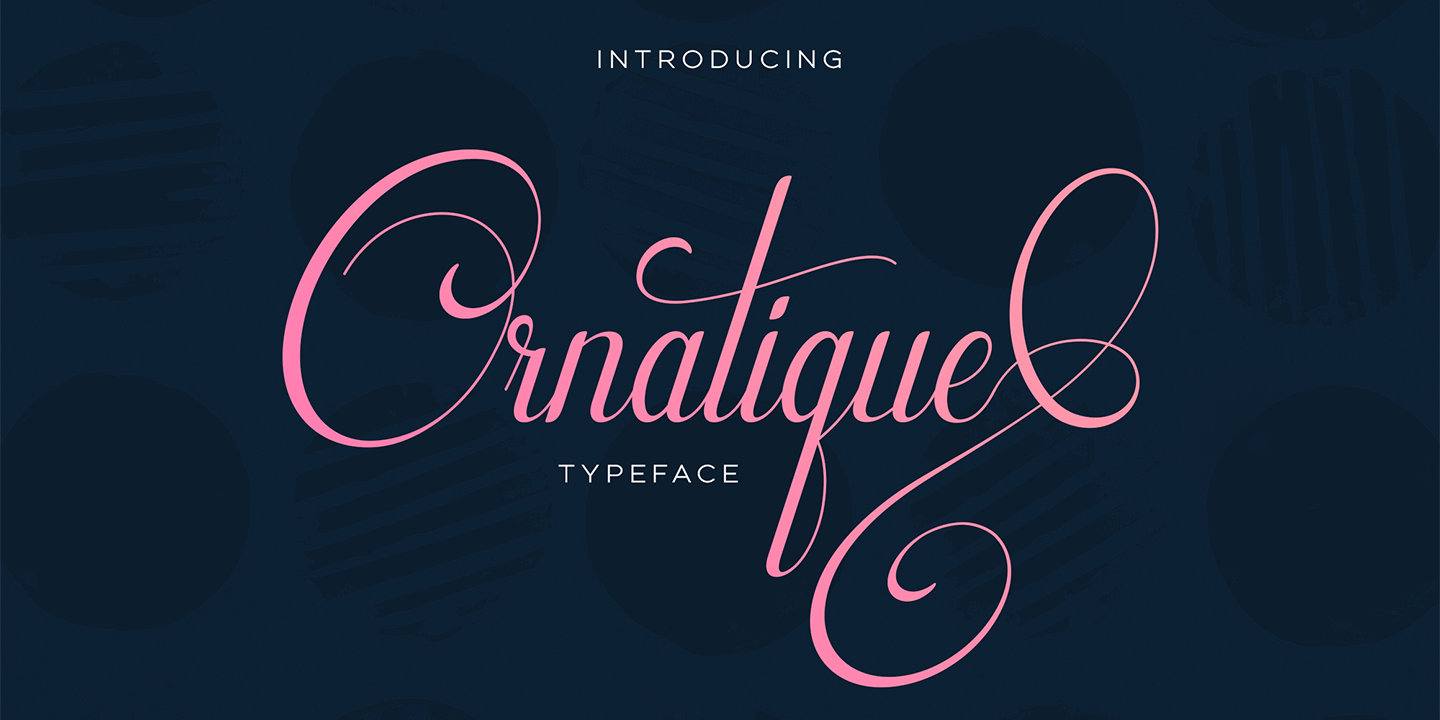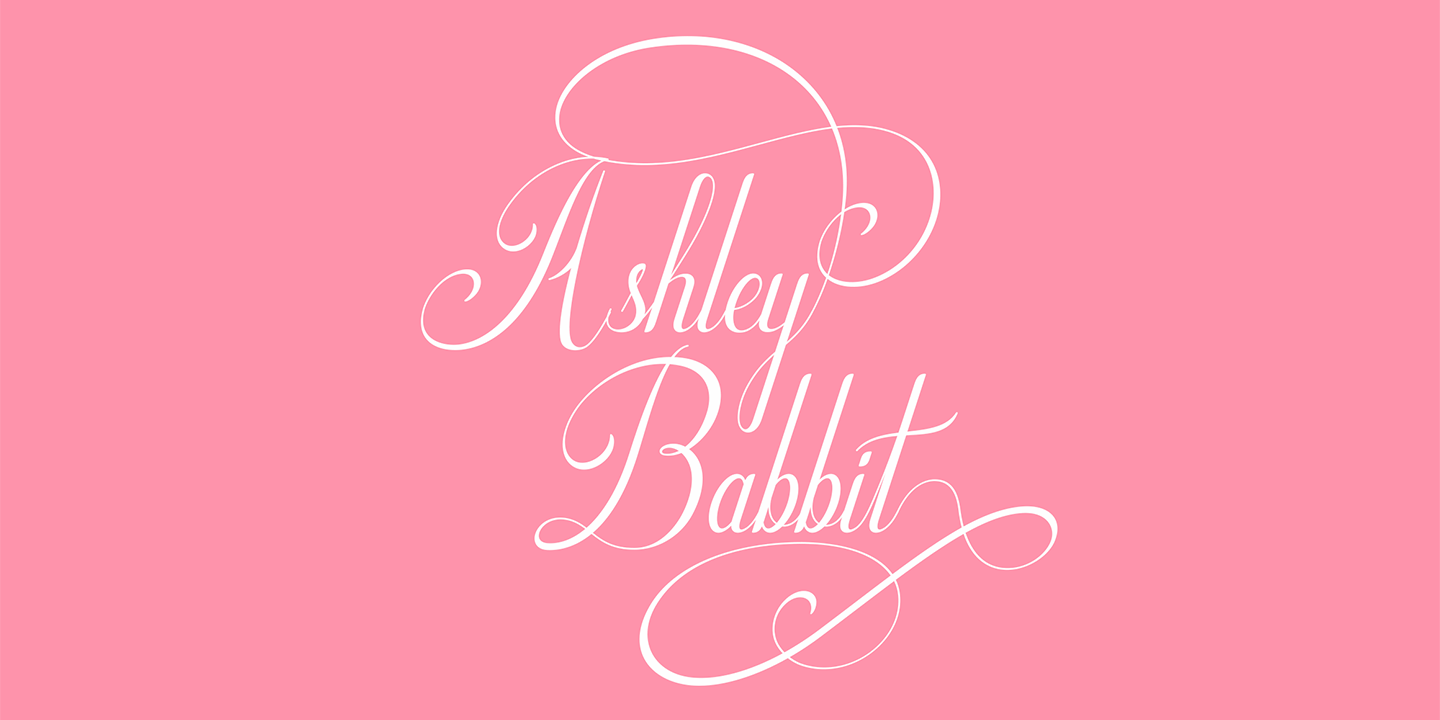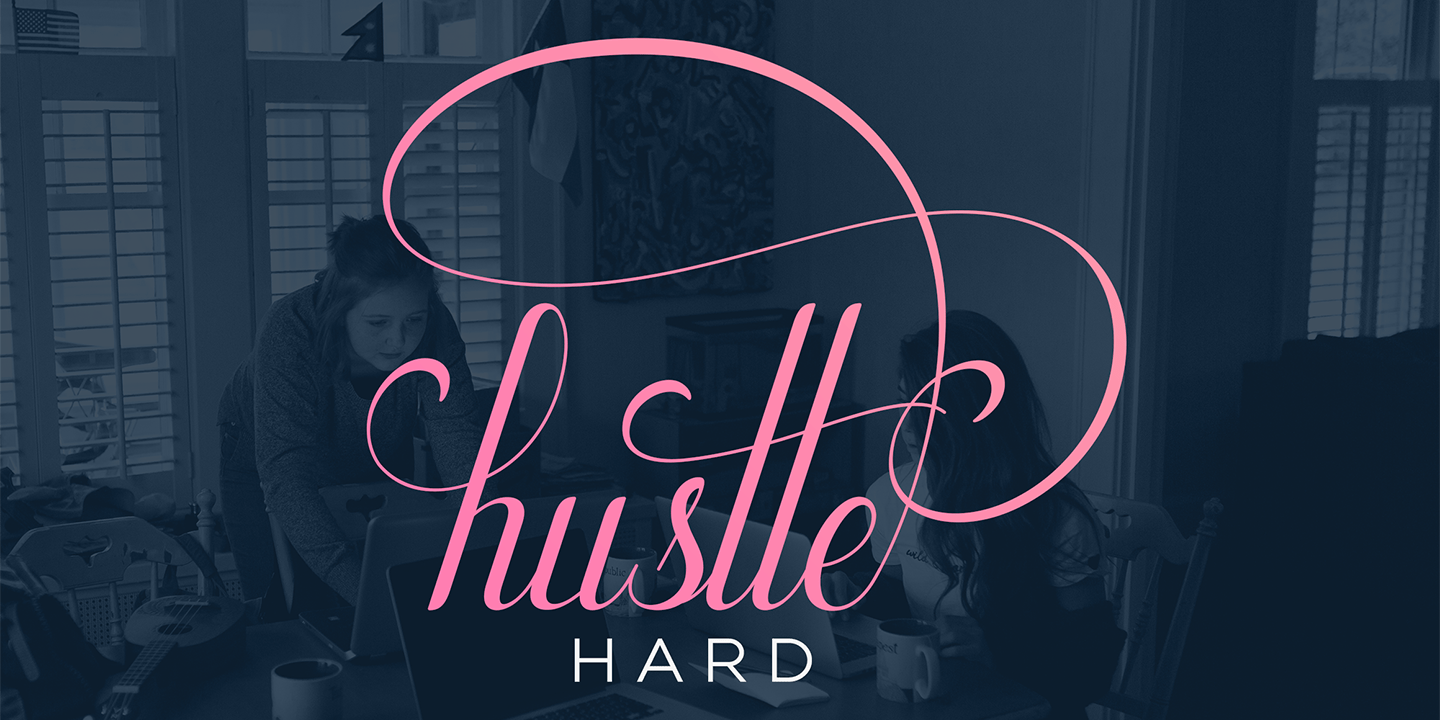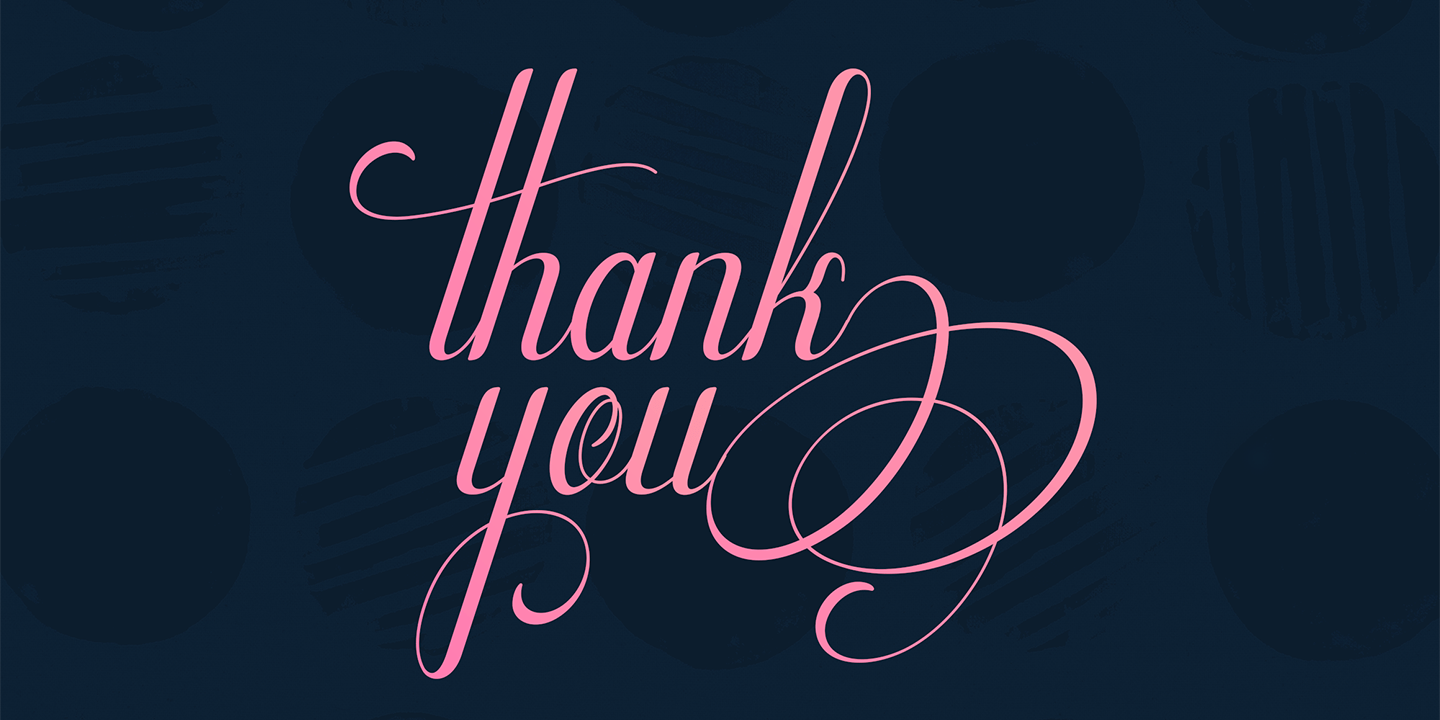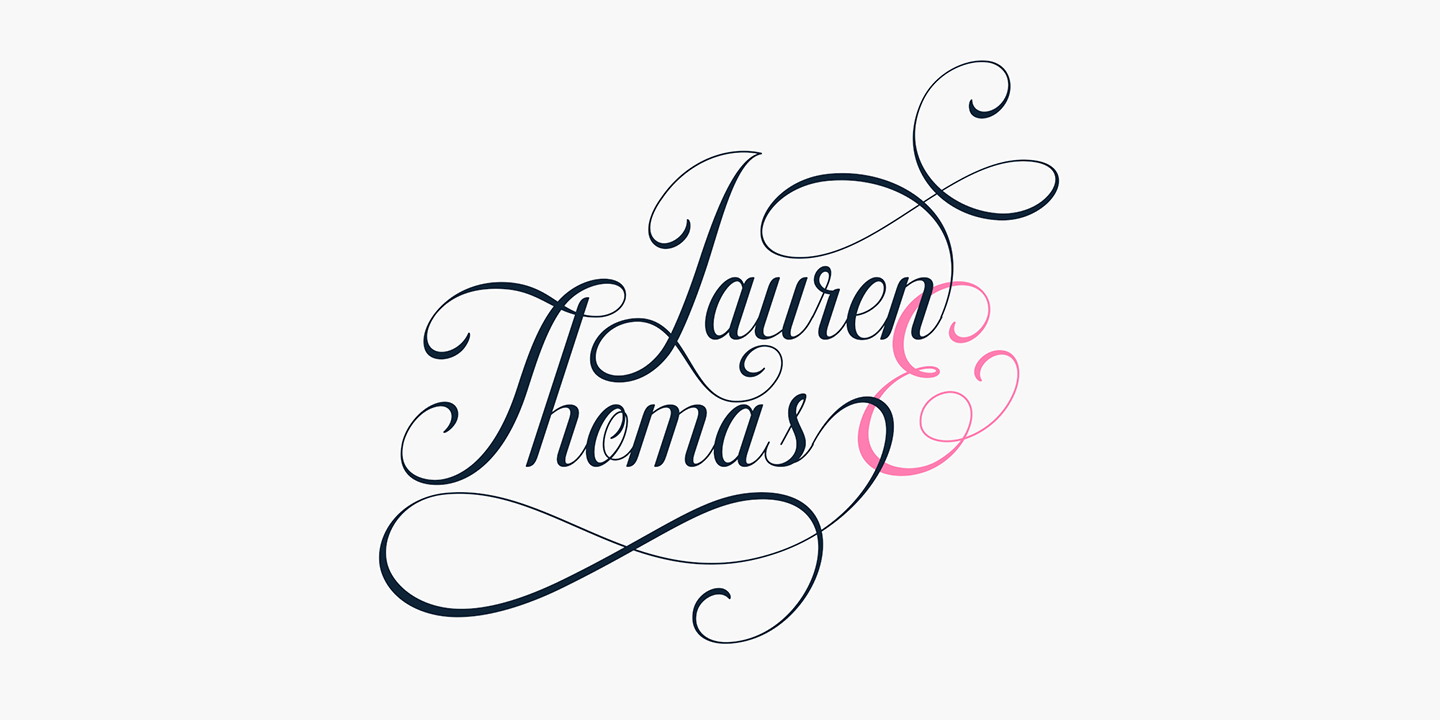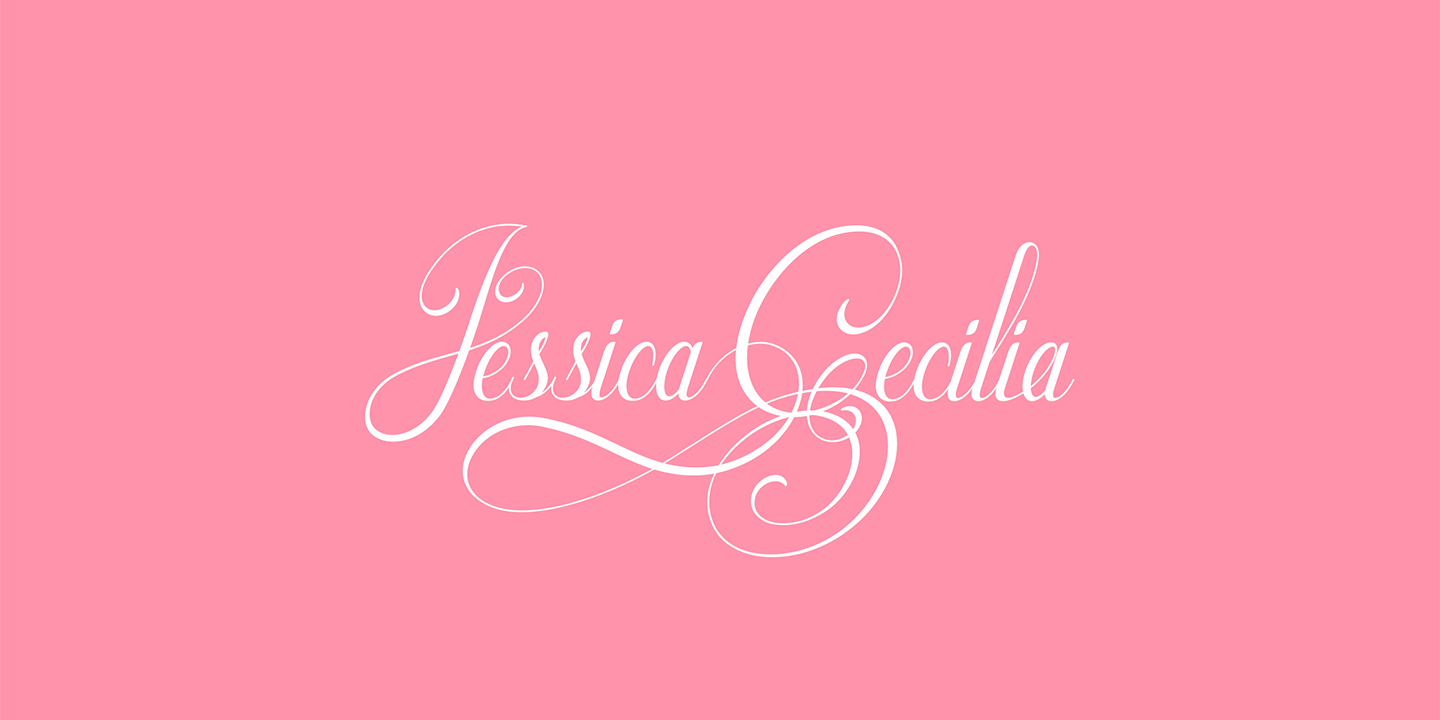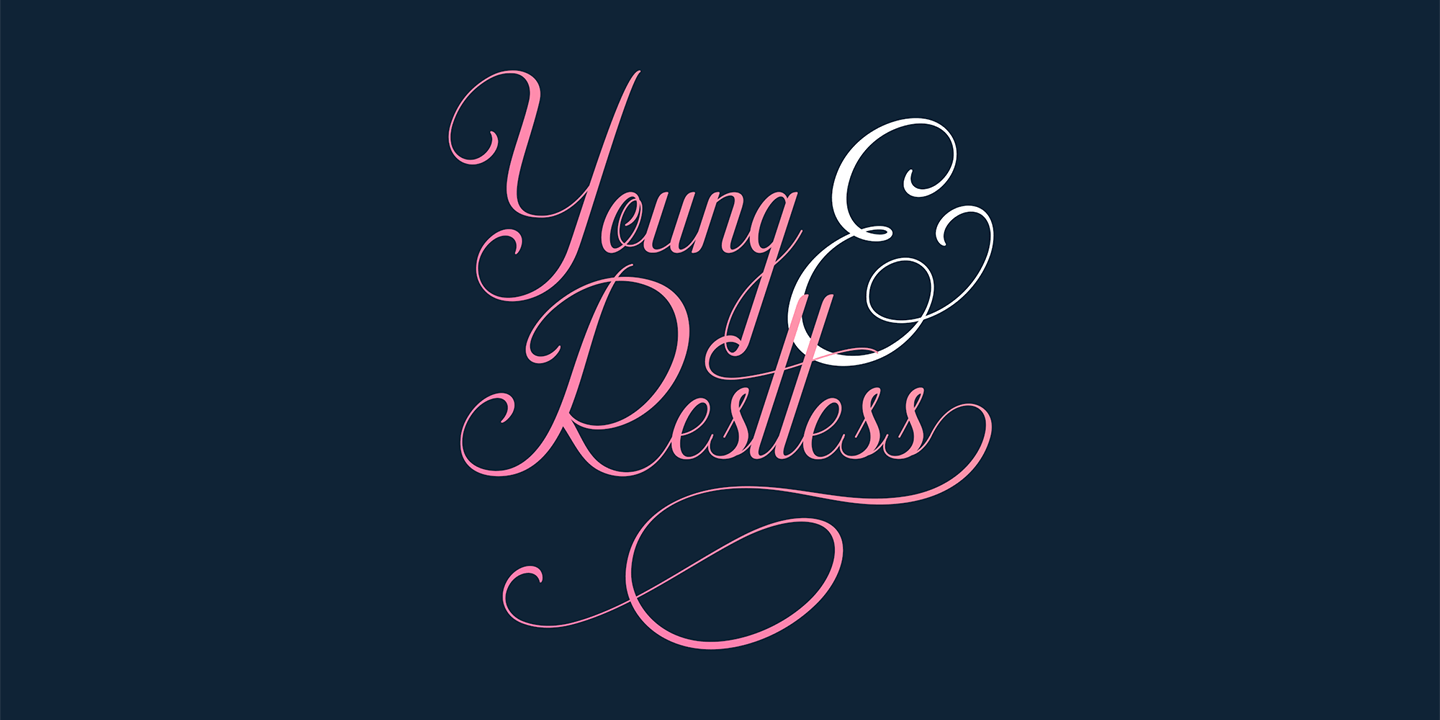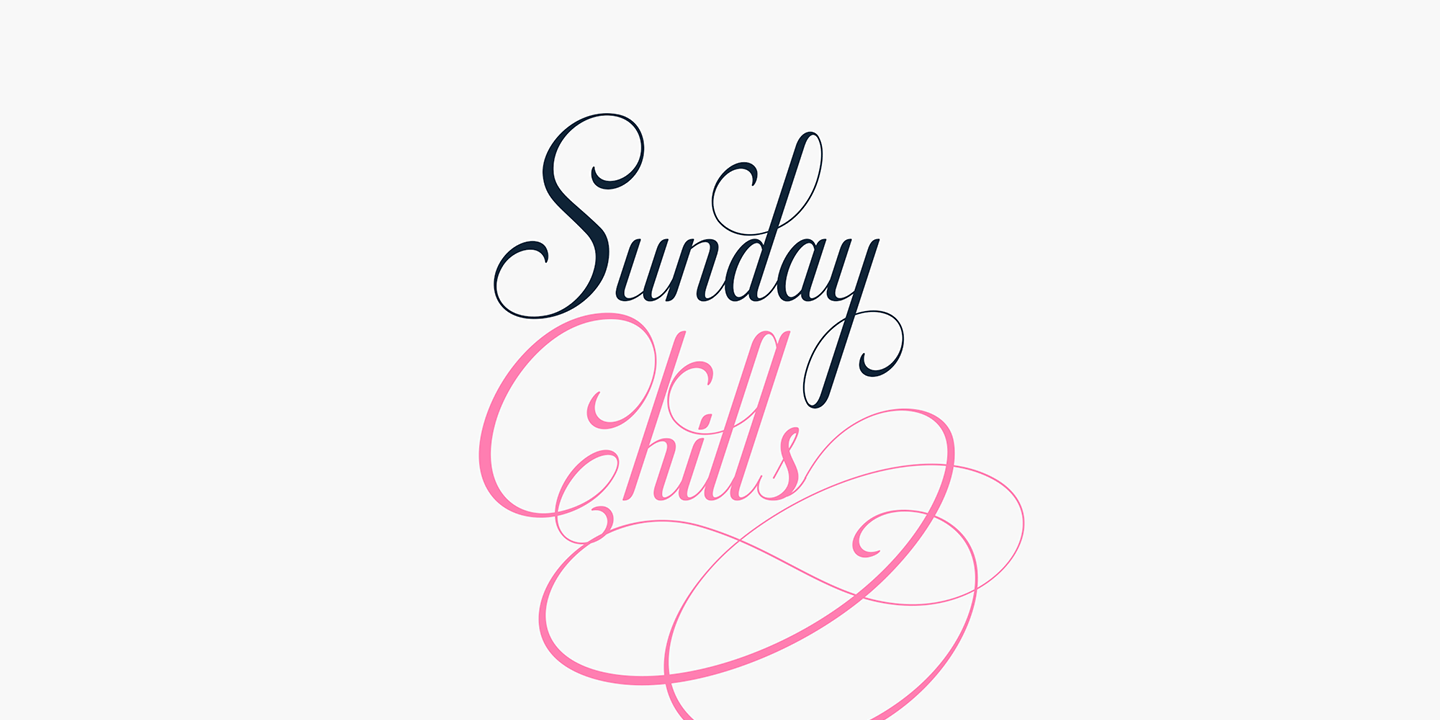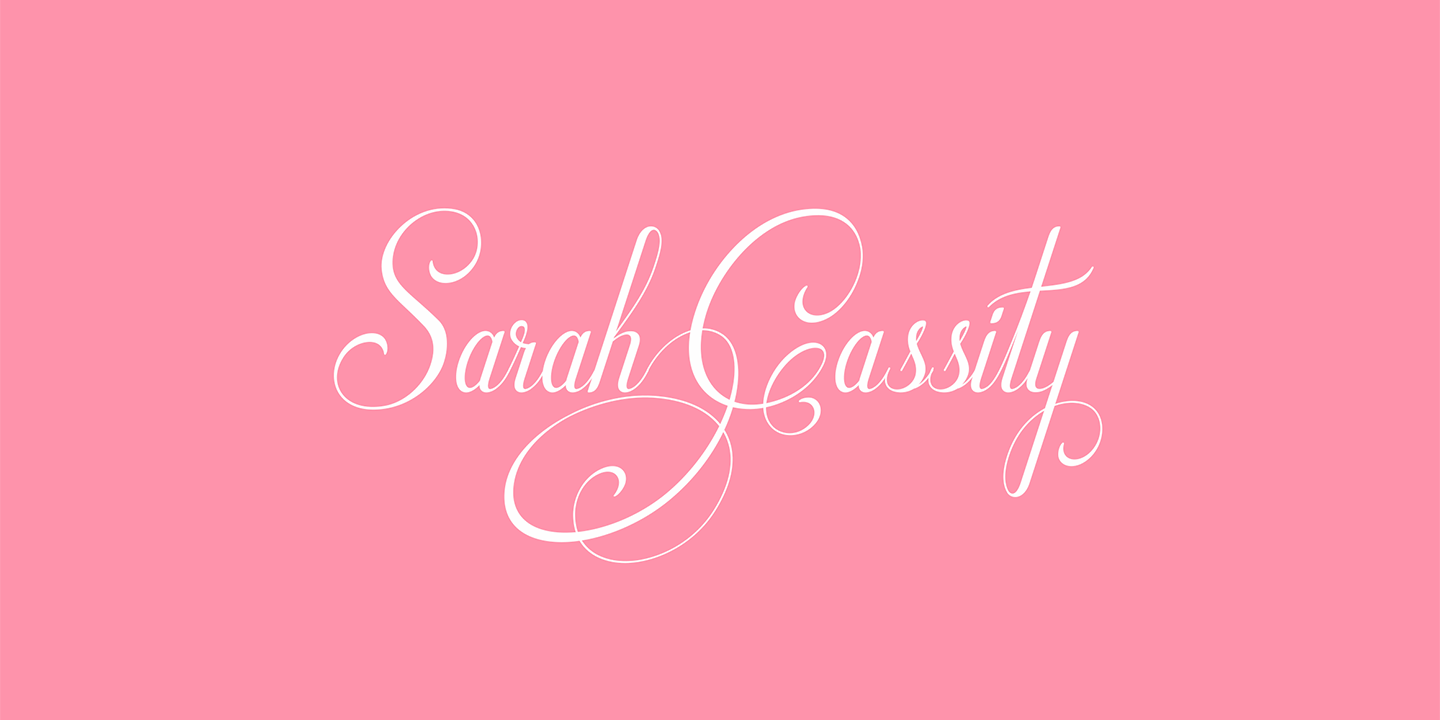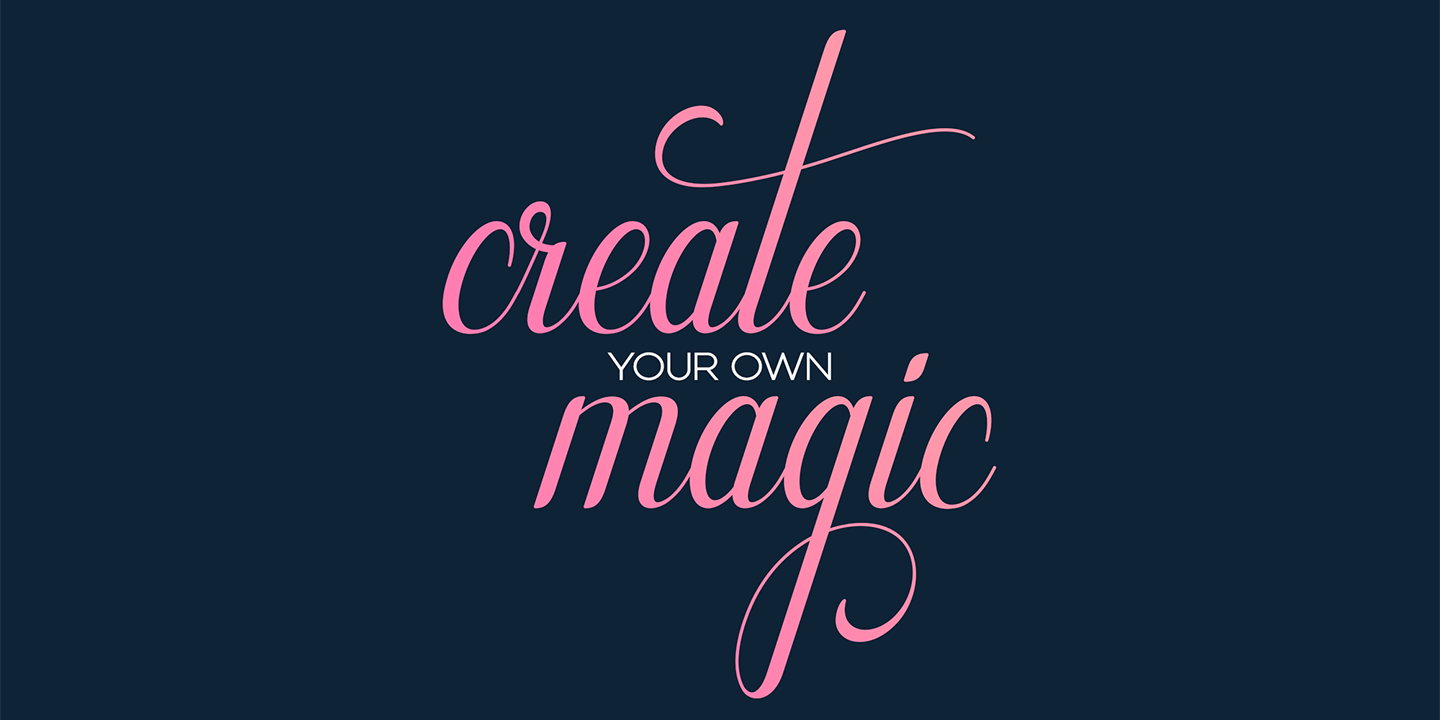
Ornatique
???? Discover the beauty of Ornatique, a stunning and feminine calligraphy typeface designed to add a touch of sophistication to any project. ????️
With its clean lines and delicate curves, Ornatique captures the essence of graceful handwriting. This versatile typeface offers four scripts to choose from: the classic Regular script for a timeless look, the Italic script for added flair and elegance, and the Alternate versions that provide even more variety and creative possibilities.
What sets Ornatique apart is its collection of 58 swash endings, crafted as ligatures. These intricate and decorative elements bring an extra layer of beauty and charm to your designs. From elegant flourishes to delicate swirls, each swash ending adds a touch of enchantment, making your typography truly remarkable.
Whether you're creating wedding invitations, branding materials, or simply adding a touch of elegance to your personal projects, Ornatique is the perfect choice. It combines clean lines with feminine grace, ensuring that your designs will captivate and inspire.
Let your creativity soar with Ornatique and discover the magic of calligraphy that transcends language and culture. Elevate your designs and leave a lasting impression with this exquisite typeface.